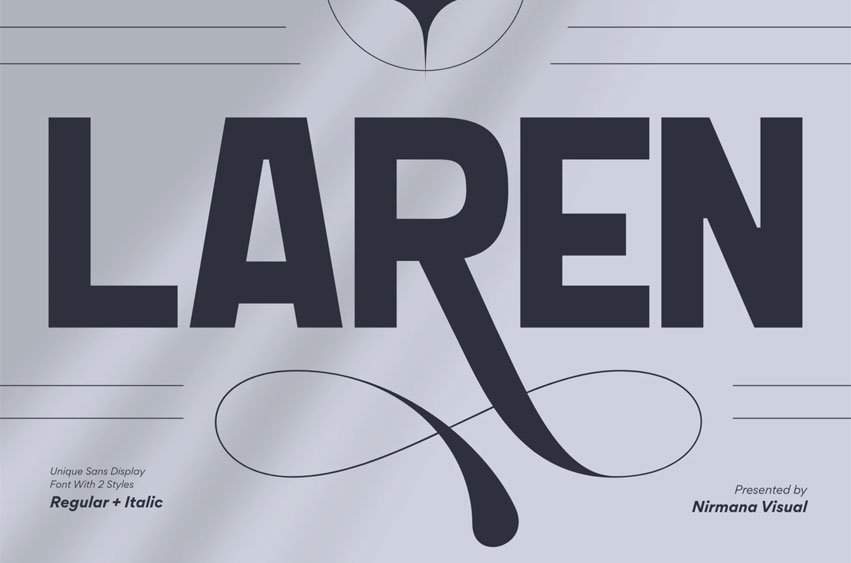
Laren Font Modern offers beautiful typographic harmony for a diversity of design projects, including logos & branding, social media posts, advertisements & product designs.